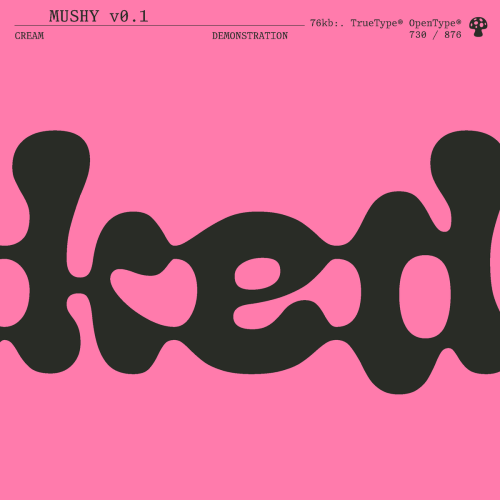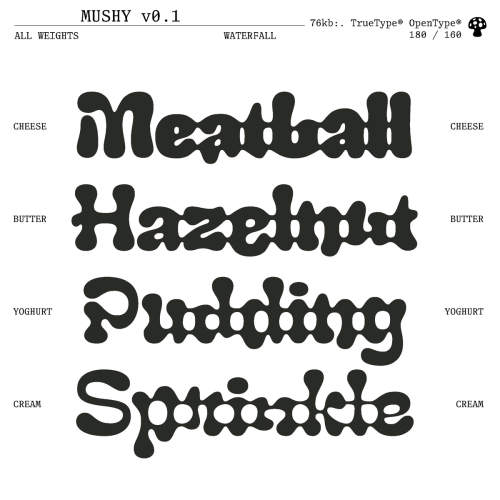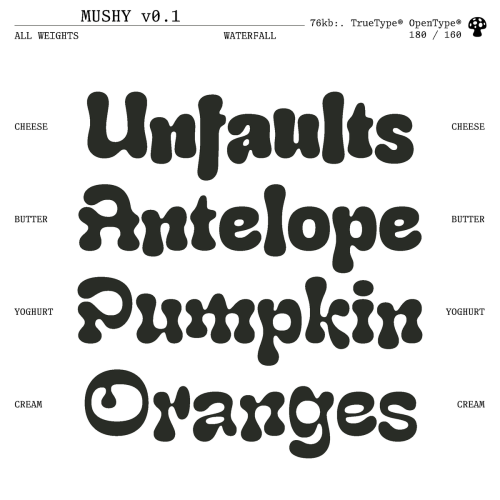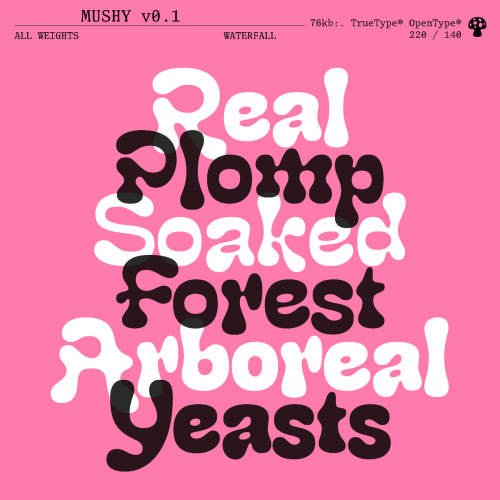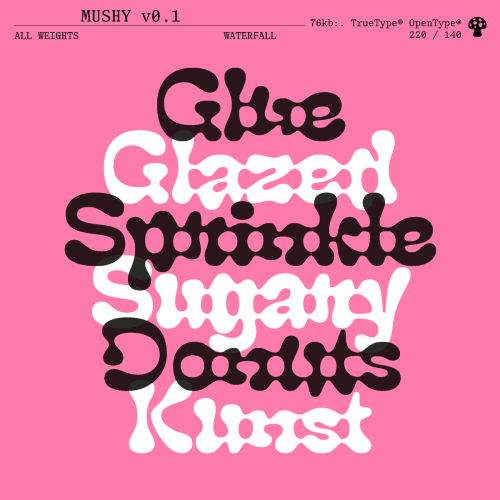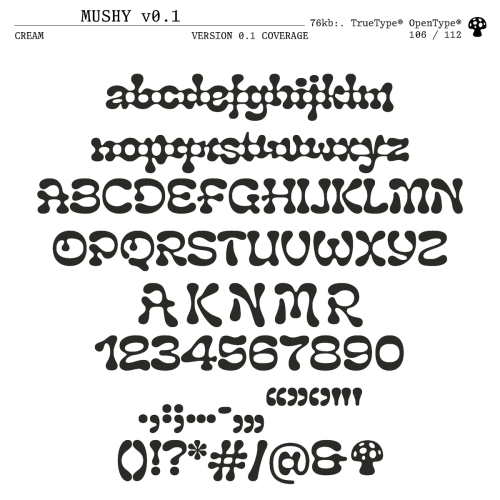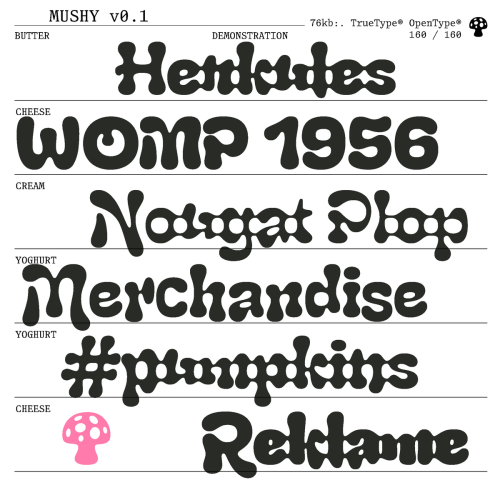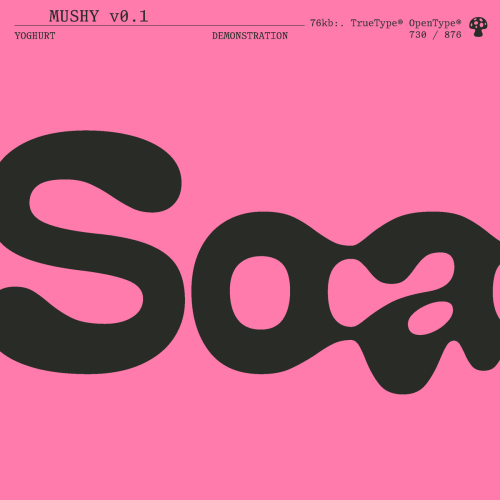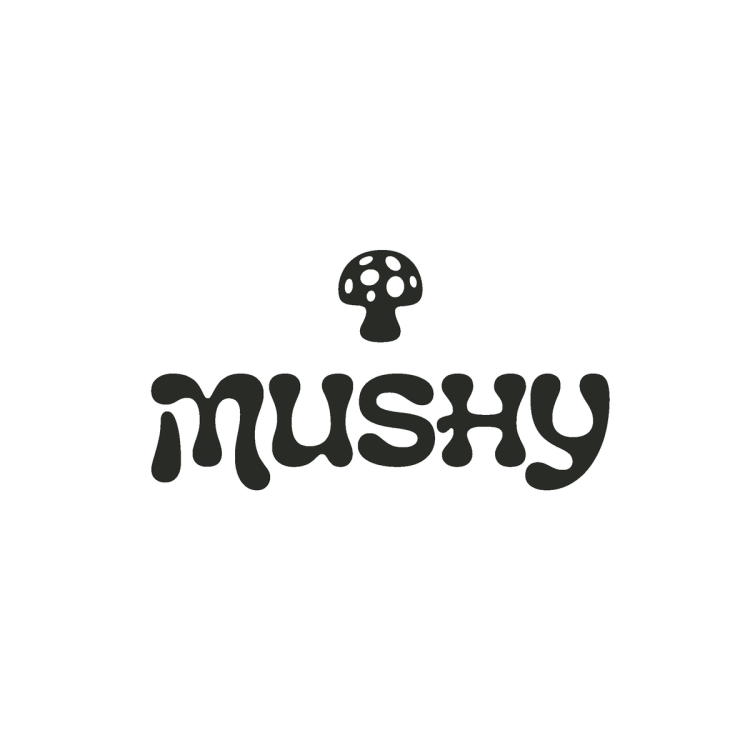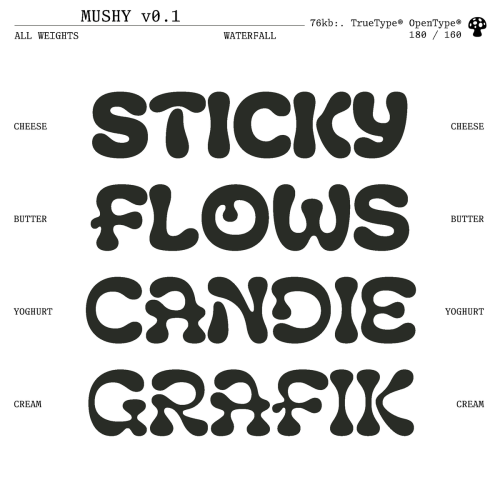
Mushy Font Family
Mushy is a soft-edged joining script display type that comes in four weights each named after gradations of dairy product – Cheese, Butter, Yoghurt and Cream. It’s also…
Mushy is a soft-edged joining script display type that comes in four weights each named after gradations of dairy product – Cheese, Butter, Yoghurt and Cream. It’s also available as a variable font. Mushy is great for logos and shorter word-marks. Using contextual alternates, the lowercase of Mushy joins up making words look like a sticky mess. And if this makes a word too hard to read, just untick contextual alternates and the unjoined Mushy lowercase will look clearer.
The inspiration for Mushy comes from jugendstil soft display types like Herkules. The idea for the joining script comes from inky textura types (Gutenberg Bible style lettering), where the blackletter in/out strokes bleed into each other making a line of text look like a garden fence. The uppercase also contains a few optional Swashes.
Where Mushy Font Family works best
Mushy Font Family is built for size: event posters, hero headlines and billboard-style layouts.
High contrast display type like Mushy Font Family reads instantly in thumbnails and motion graphics.
What is Mushy Font Family good for?